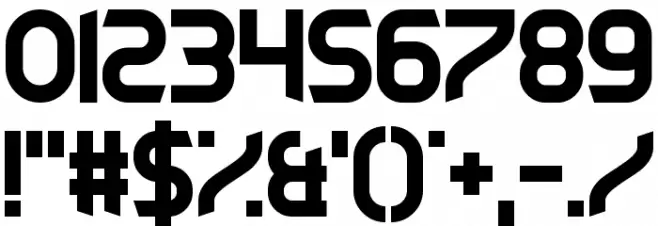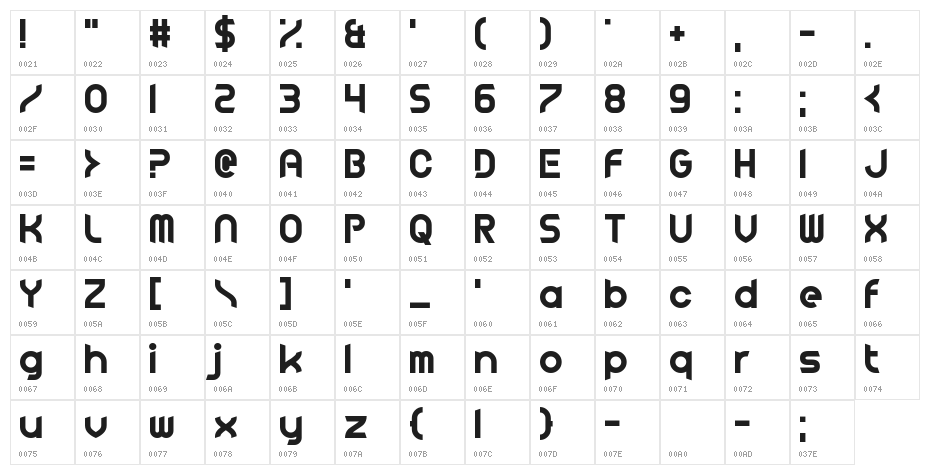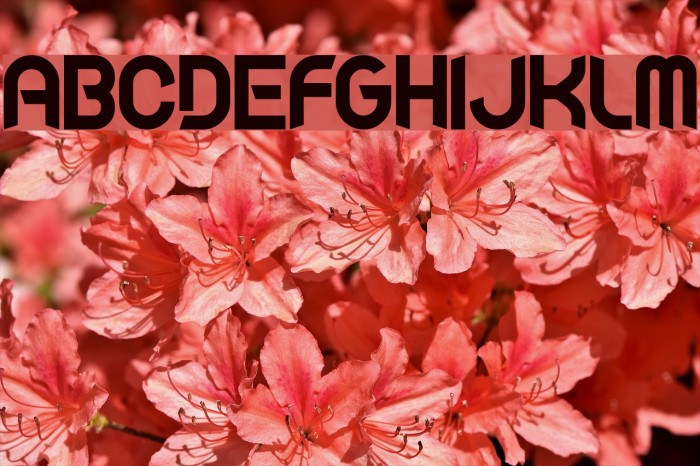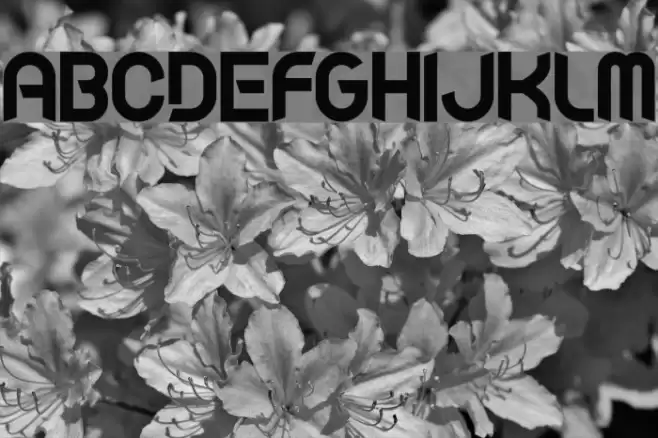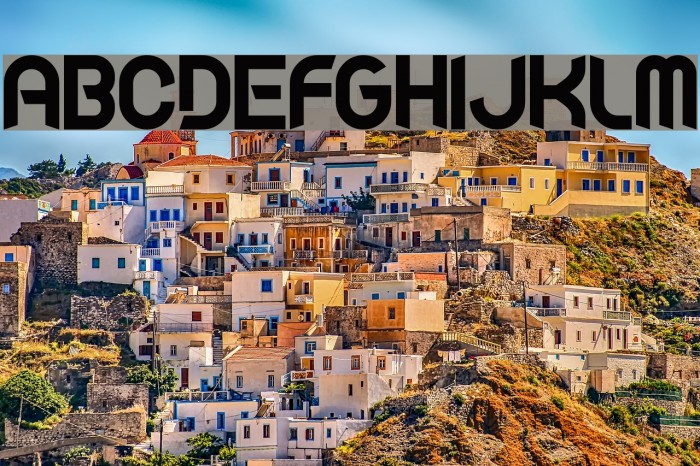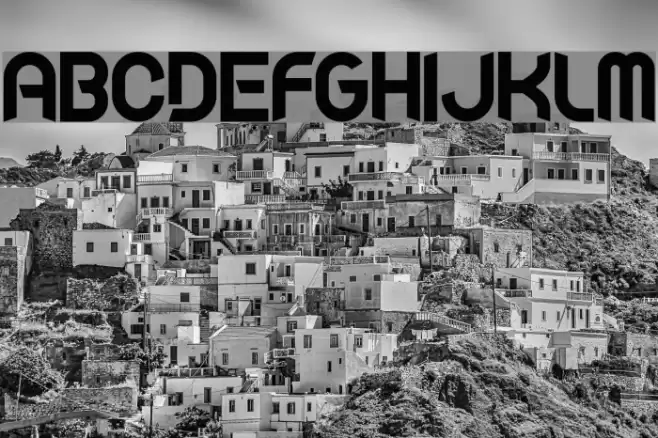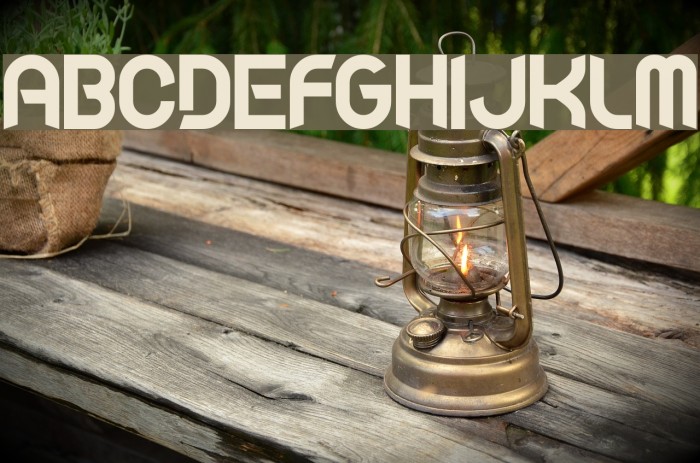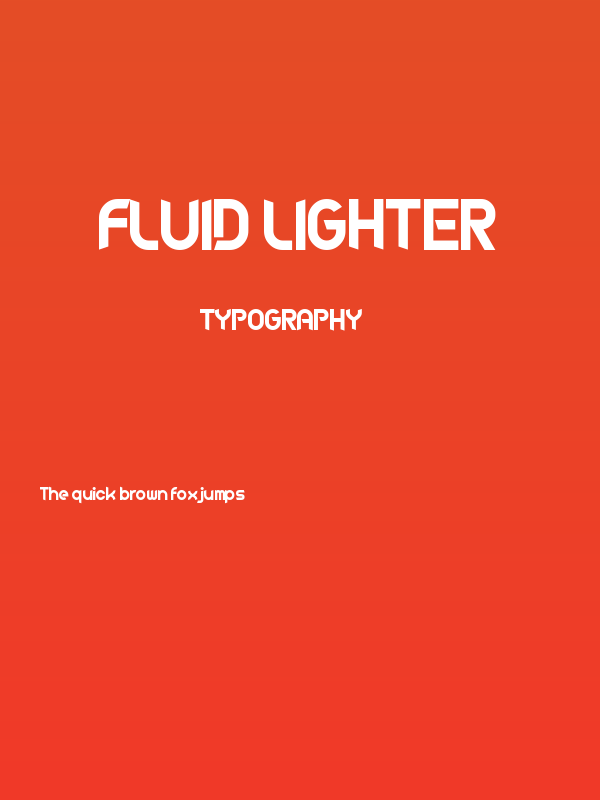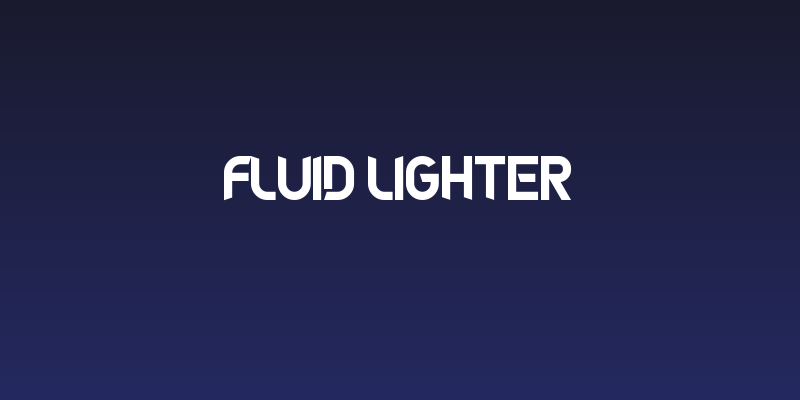
Fluid Lighter Font
Fluid Lighter Description
This font features a bold and geometric design with a futuristic flair. The characters are constructed with sharp angles and clean lines, creating a sense of modernity and precision. The uppercase letters exhibit a uniform height, while the lowercase letters maintain a consistent baseline, enhancing readability. The numerals are distinct and align well with the overall style, making them suitable for digital displays. Special characters are designed to complement the alphanumeric set, ensuring a cohesive look. The font's strong presence makes it ideal for attention-grabbing headlines and branding projects.
| Proposed Projects | Ideal for tech branding, digital interfaces, futuristic posters, and modern advertising campaigns. |